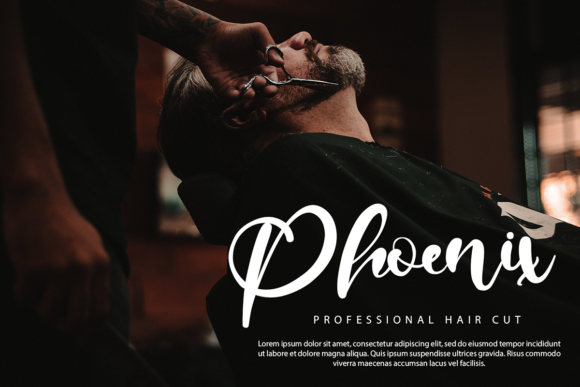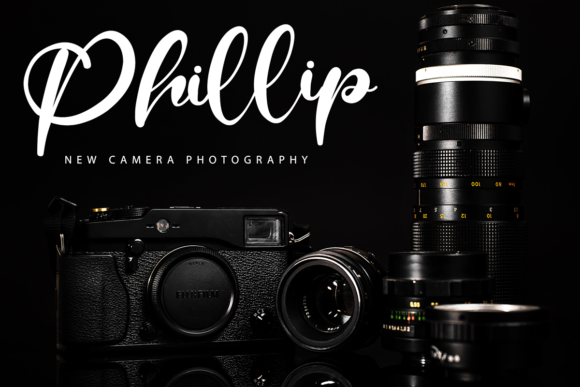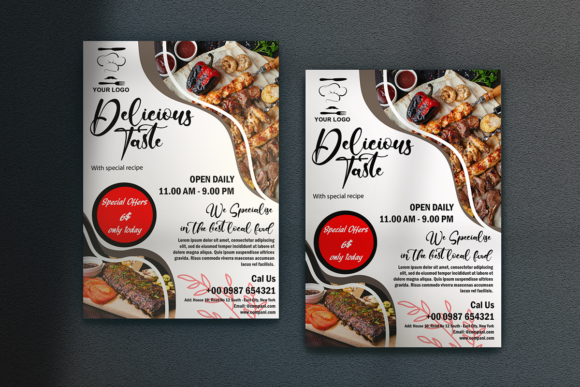
Introduction to Sandy Rill Font
Remember that moment when you’re brainstorming a creative project, and a single font can make all the difference? For designers, finding the perfect font can be a game-changer. It’s the difference between a mediocre design and a masterpiece.
One font that has caught the attention of many designers is the Sandy Rill Font. This modern signature typeface is a versatile design resource that’s perfect for logotype, branding design, and digital lettering arts. Its sleek and elegant design makes it a great addition to any creative project, from t-shirt and apparel designs to posters and magazine layouts.
What sets the Sandy Rill Font apart is its high-quality design and transparent background, making it easy to use in any design project. And the best part? It’s available for free download, making it an invaluable resource for designers of all levels.
Key Features of Sandy Rill Font
- Font size: 10,000+ glyphs, covering a wide range of languages and characters
- Unique, hand-drawn style with a natural, organic feel
- Perfect for designers and artists looking for a distinctive, creative font
Honest Review: Sandy Rill Font
I recently came across the Sandy Rill Font, a free download that I was excited to integrate into one of my creative projects. Overall, I was pleasantly surprised by the quality and versatility of this design resource.
Here are some of the things that I found worked well:
- ✨ The font’s transparent background allows for seamless integration with any background image or color, giving me the flexibility I need to achieve a specific design aesthetic.
- ✨ The font’s clean and modern design makes it perfect for a variety of creative projects, from digital graphics to print materials.
- ✨ The high quality of the font ensures that it looks great at various font sizes, making it a reliable choice for any design project.
However, there are a few limitations that I’d like to mention:
- ⚠️ The font may not be suitable for projects that require a more formal or traditional tone, as its modern design may come across as too casual.
- ⚠️ The font’s limited character set may require some extra work if you’re planning to use it for projects that involve a lot of custom typography.
Overall, I’d say that the Sandy Rill Font is a great addition to any designer’s toolkit. Its high quality, versatility, and free download make it a valuable resource for anyone looking to add some creativity to their projects.
Sandy Rill Font
The Sandy Rill Font is a high-quality design resource ideal for creative projects. This font features a transparent background, making it perfect for layered designs.
Tips for Getting the Most Out of Sandy Rill Font
For the best results, use the Sandy Rill Font with a contrasting background to make the text stand out. You can also experiment with different font sizes and styles to create a unique design.
The Sandy Rill Font is ideal for a variety of creative projects, including: posters, flyers, brochures, and social media graphics. Its high-quality design and transparent background make it perfect for layered designs.
Alternatives to Sandy Rill Font
Use Pacifico for: wedding invitations, luxury branding, and any design project needing a touch of class. Compared to Sandy Rill Font, Pacifico is more refined and less playful.
Great Vibes is a modern, cursive script font ideal for design projects requiring a fun, creative vibe. It’s available for free download on DaFont and features a transparent background for seamless overlaying. Great for use in social media graphics, posters, and more.
Use Great Vibes for: social media campaigns, music festivals, and any project needing a carefree, energetic feel. Compared to Sandy Rill Font, Great Vibes is more casual and less formal.